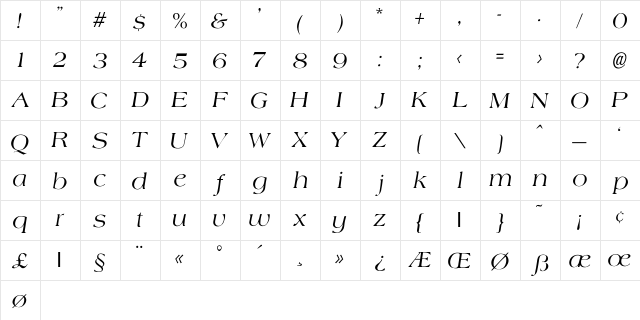
Shale-Normal-Italic Regular Font Preview
Shale-Normal-Italic Regular
Shale-Normal-Italic Regular Font Details
Design Context for Shale-Normal-Italic Typeface
Shale-Normal-Italic offers clean, dependable letterforms without strong stylistic allegiance, making it a practical choice for designers who need flexibility. The dynamic lean of this cut emphasises speed and emphasis in any layout.